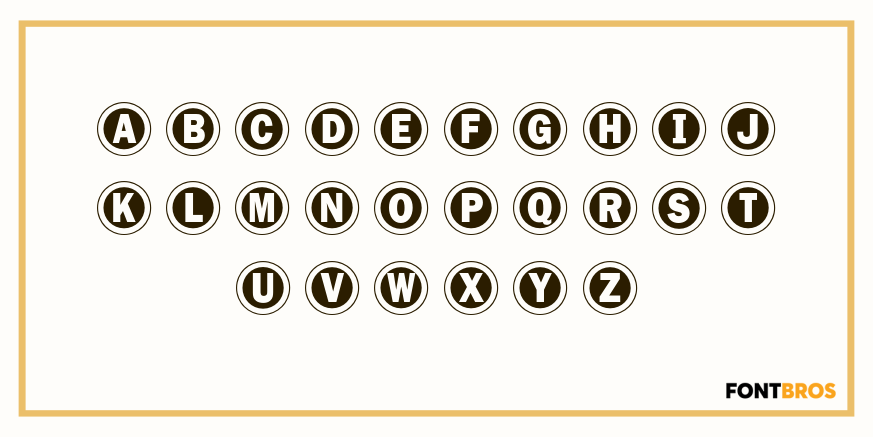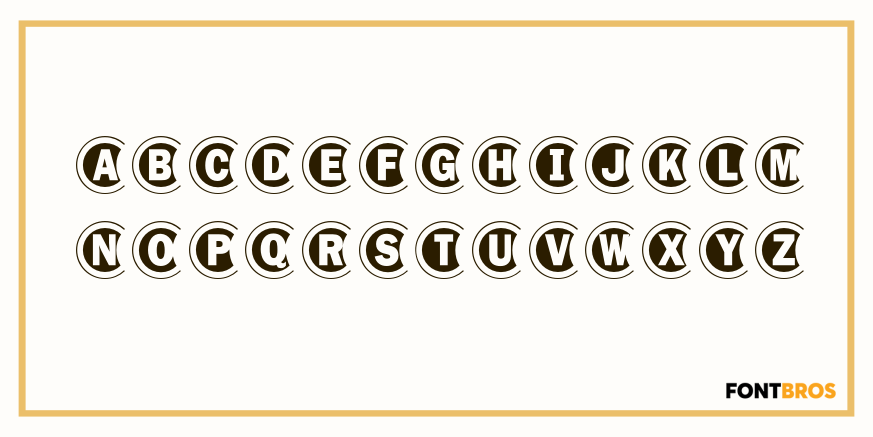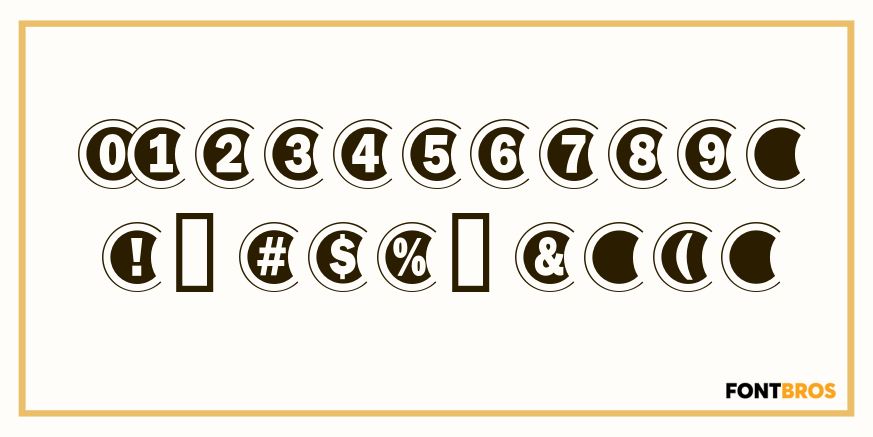
Disco
Each letter or character comes in two forms on this font: One as a complete disc, the other as a disc with a segment removed so the succeeding character can overlap the preceding one.
Disco by Solotype